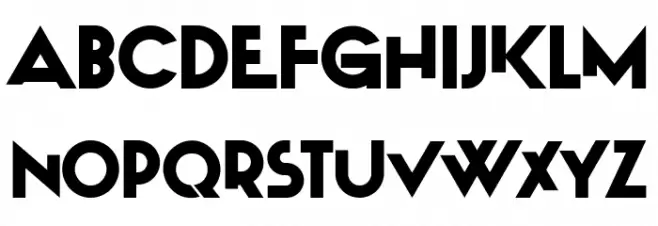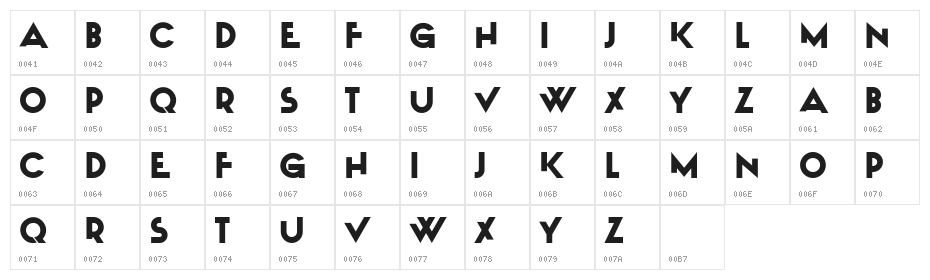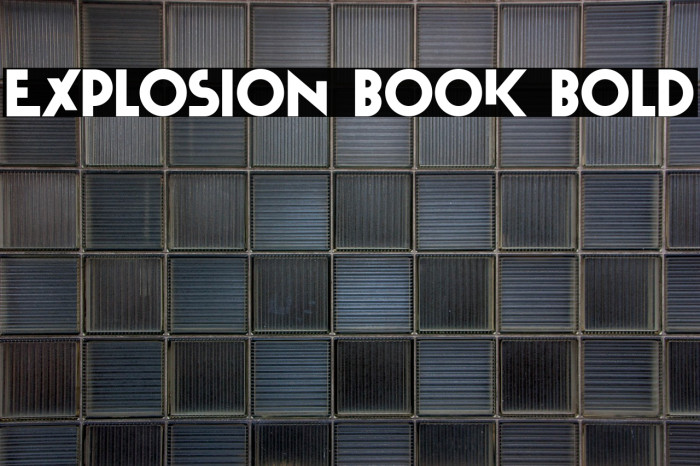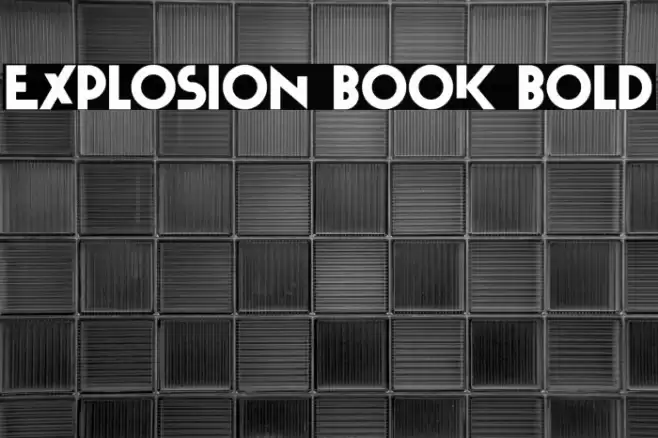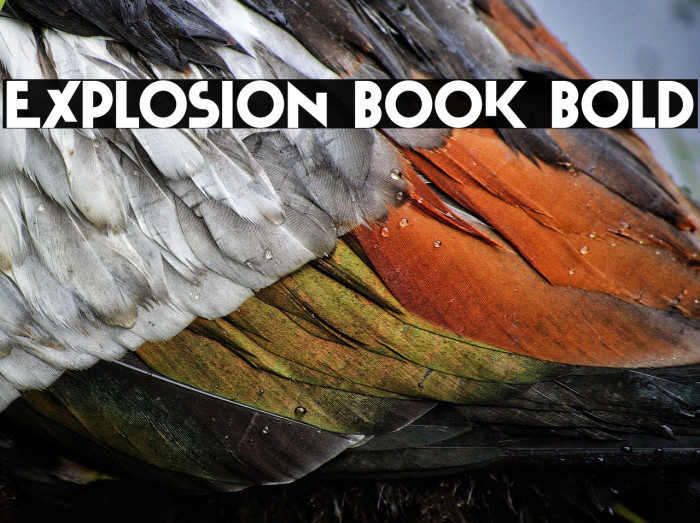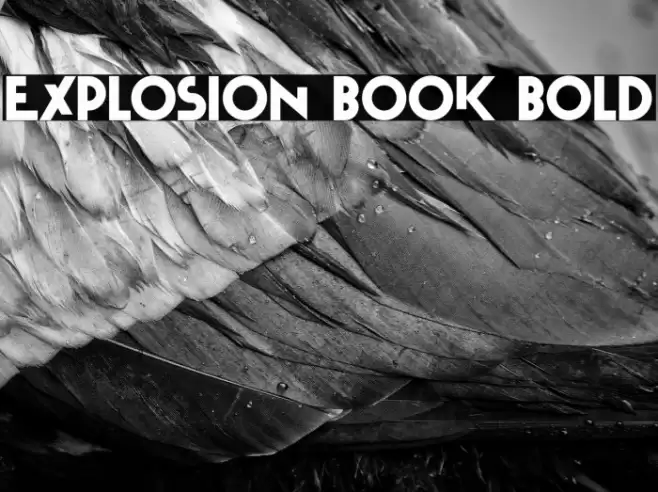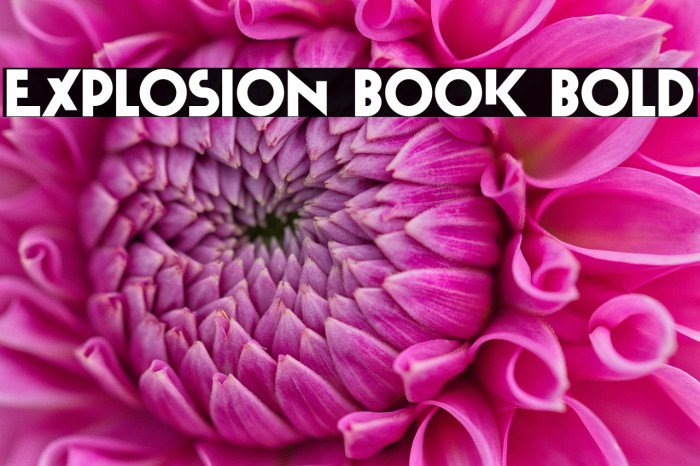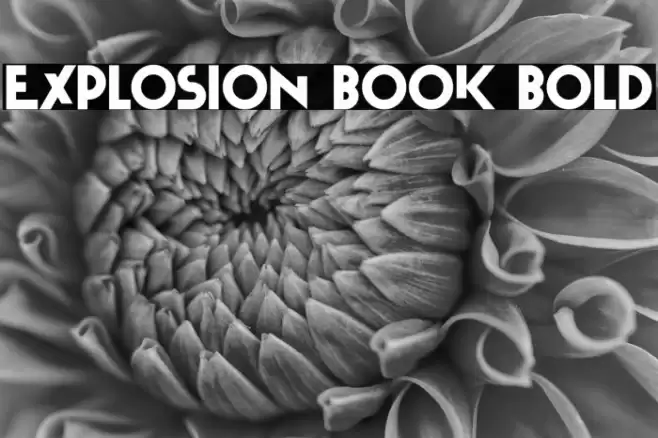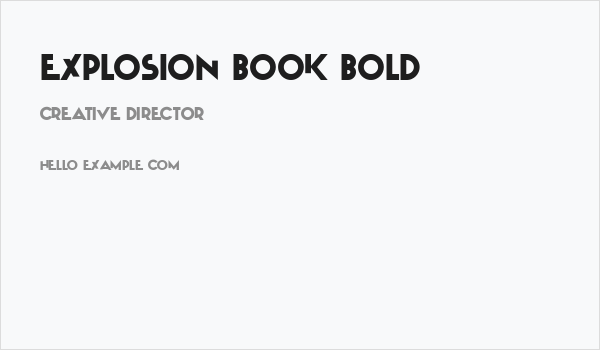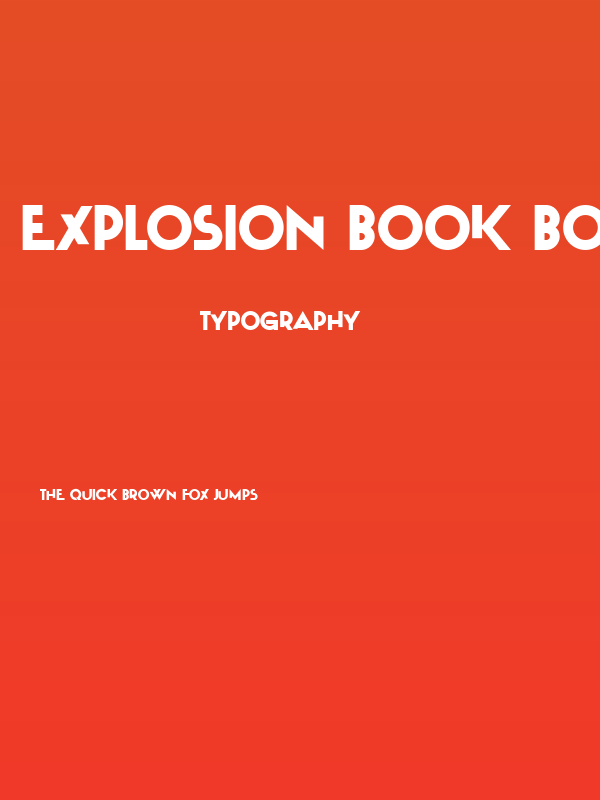
Explosion Book Bold Font
Explosion Book Bold Description
This font features bold, geometric letterforms with a strong presence. The characters are designed with sharp angles and clean lines, creating a modern and assertive look. The uppercase letters are particularly striking, with a uniform height and width that contribute to a cohesive appearance. The font's bold weight and high contrast between thick and thin strokes make it ideal for attention-grabbing headlines and impactful designs. Its contemporary style is suitable for a variety of creative projects, offering a sense of dynamism and energy.
Proposed ProjectsIdeal for branding, posters, headlines, and any design requiring a strong visual impact.